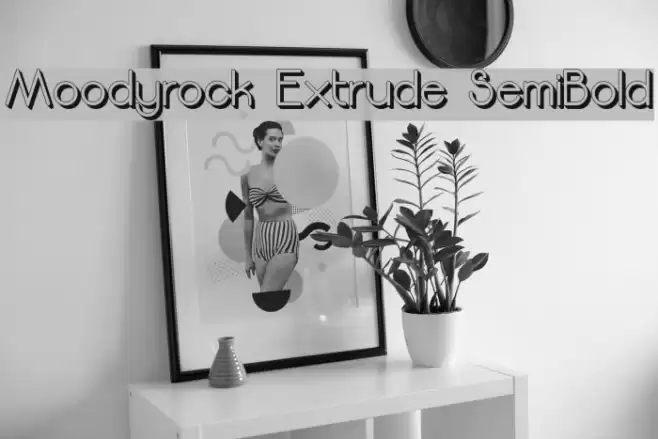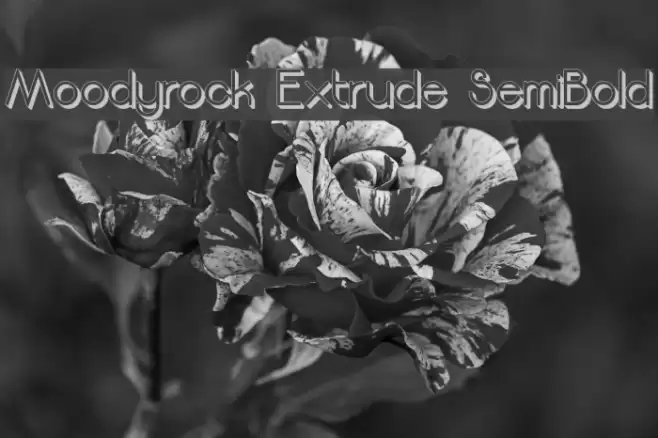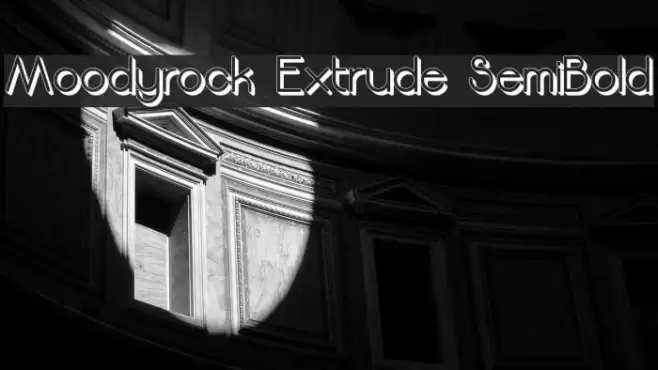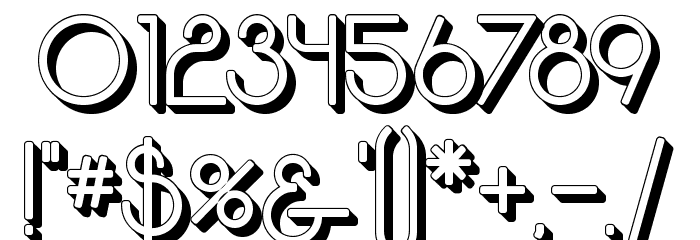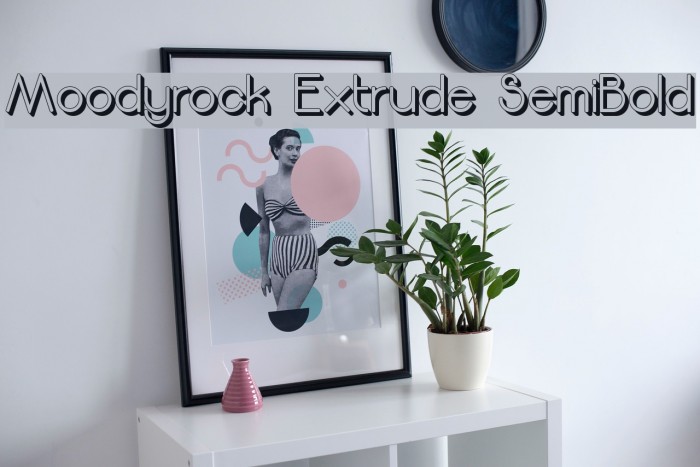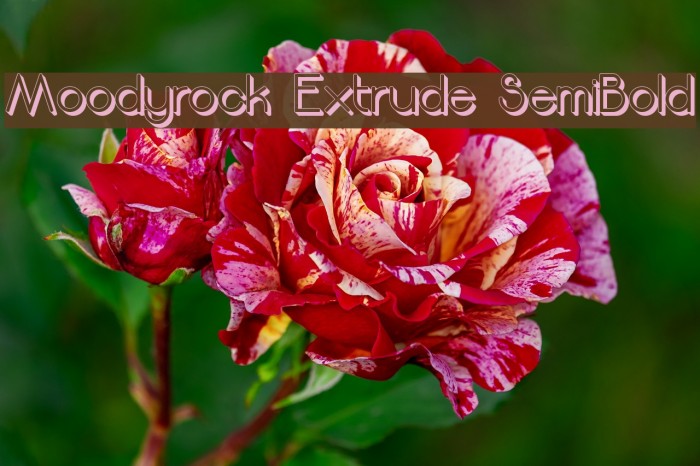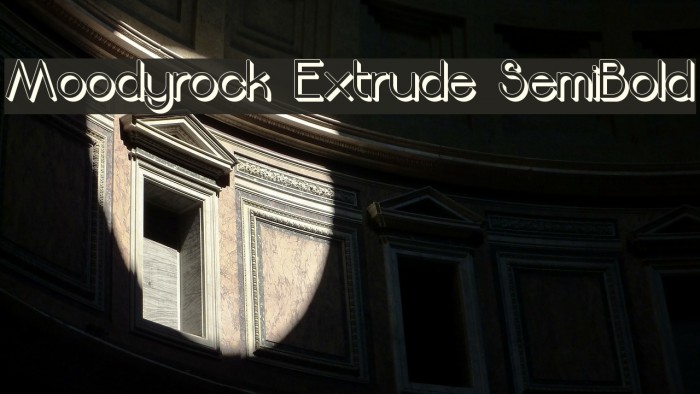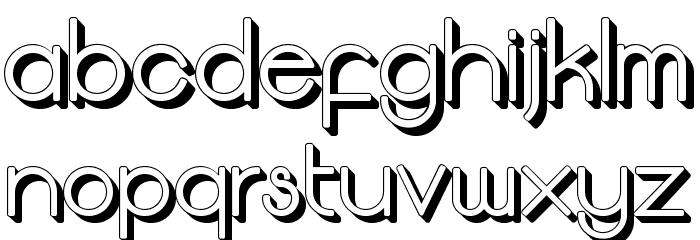
Moodyrock Extrude SemiBold Font
Moodyrock Extrude SemiBold Description
This font features a bold and striking design with an extruded effect that gives it a three-dimensional appearance. The characters are geometric and modern, with clean lines and a consistent stroke width. The uppercase and lowercase letters maintain a uniform style, while the numerals and special characters complement the overall aesthetic. The font's unique extruded style makes it stand out, adding depth and visual interest to any design. It's ideal for projects that require a bold statement or a modern, edgy look.
A bold, geometric font with a 3D extruded effect, perfect for modern designs from Uncategorized fonts.
- Proposed Projects: Ideal for posters, logos, headlines, and branding materials that require a bold and modern touch.